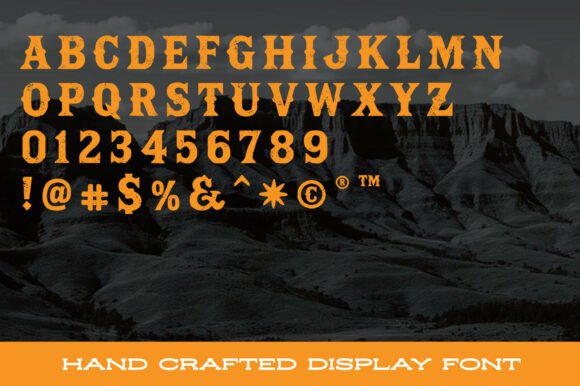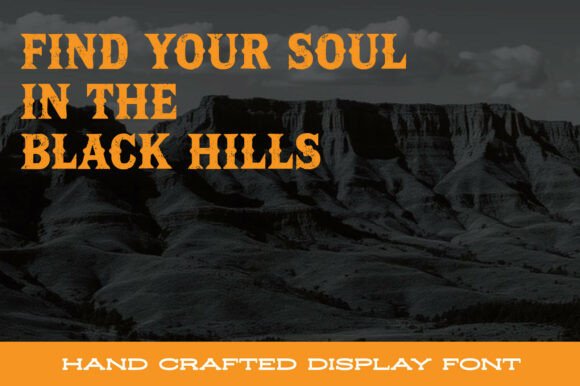
Introduction to Rustknuckle Font Font
Fonts play a crucial role in design, and the Rustknuckle Font font is a typeface that brings both character and versatility to any project. Whether you’re working on a branding project, a website, or a print design, the Rustknuckle Font font offers a unique style that can elevate your work.
Rustknuckle is a bold, battle-worn Western display font that punches hard with every letter.
Inspired by the grit of outlaw towns and the clang of iron on dust-covered streets, Rustknuckle features wide, angular characters with rough edges and subtle side spurs — like metal scraped against stone Its distressed, weathered appearance captures the raw spirit of the Old West, perfect for wanted posters, saloon signage, or anything that needs a heavy dose of frontier attitude.
Key Features of Rustknuckle Font Font
Why Choose Rustknuckle Font Font?
The Rustknuckle Font font is more than just a typeface – it’s a design tool that helps you communicate your message with style and clarity. Its unique character set and versatile design make it suitable for a wide range of applications, from elegant invitations to bold headlines.
With its carefully crafted letterforms and balanced proportions, the Rustknuckle Font font ensures readability and visual appeal across all mediums.
What makes Rustknuckle Font font special?
The Rustknuckle Font font stands out with its unique design, exceptional readability, and versatility across various design applications.